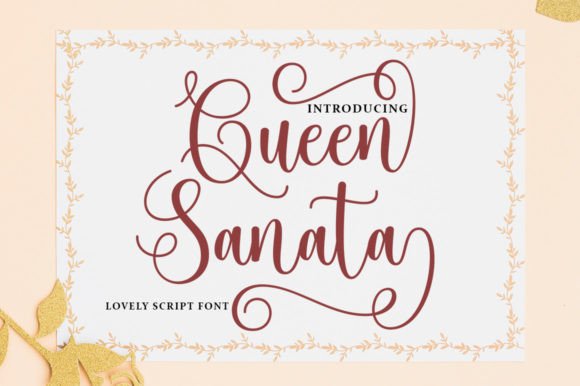
Introducing Queen Sanata Font, the ultimate choice for your Christmas logo designs! Created by the talented team at rotterlabstudio, this exquisite script font is a must-have for anyone looking to add a touch of elegance and sophistication to their projects.
With Queen Sanata, every letter is meticulously designed to showcase intricate details, reminiscent of a beautiful hand-drawn script. Its graceful curves and stylish strokes make it stand out from the crowd, instantly capturing attention and leaving a lasting impression.
Whether you're in the fashion industry or planning a special event, Queen Sanata is the perfect companion for your branding needs. Its modern yet refined design effortlessly elevates your high-end fashion branding, making it the ideal choice for fashion logos, labels, and packaging.
But that's not all - Queen Sanata is also ideal for creating stunning invitations and announcements. Its personal and polished touch adds a sense of warmth and charm, making your invitations truly stand out. You can even add a touch of flair with the font's wide range of glyphs and swashes, thanks to its PUA encoding.
When it comes to marketing your products, the right font can make all the difference. Queen Sanata Font is not just a font; it's an experience. Its captivating and emotional appeal will draw in your target audience, making them fall in love with your brand.